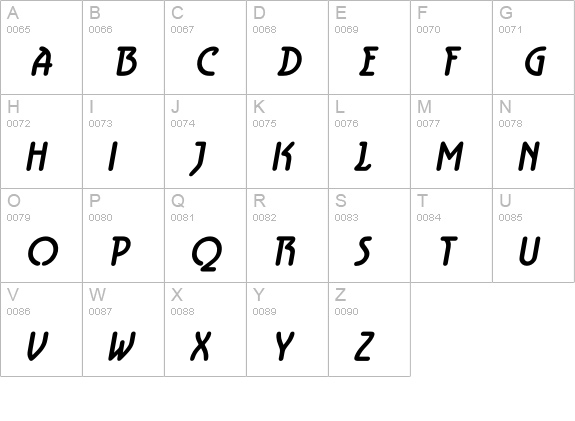
Aerolite Bold Italic is a strong, high-contrast, italic variant in the Aerolite typeface family \xE2\x80\x94 well suited to headlines, attention-grabbing titles, and strong calls-to-action.
Aerolite Bold Italic font is a stunning display of elegance and modernity. Its bold and italicized design adds a touch of sophistication to any project, making it perfect for headlines, logos, and branding materials. The unique blend of sleek curves and sharp angles creates a visually striking appearance that is sure to captivate your audience. This font is not only visually appealing, but it also boasts exceptional legibility, ensuring that your message is communicated with clarity and impact. Whether used on printed materials or digital platforms, Aerolite Bold Italic font stands out and commands attention. One of the best features of Aerolite Bold Italic font is that it is available for free download at FontsMarket.com. This means that you can easily access and use this incredible font without any cost. With just a few clicks, you can enhance your designs and take them to the next level. So don't miss out on this opportunity to elevate your creative projects with Aerolite Bold Italic font. Download it for free today at FontsMarket.com and unleash your imagination with this versatile and visually stunning typeface.